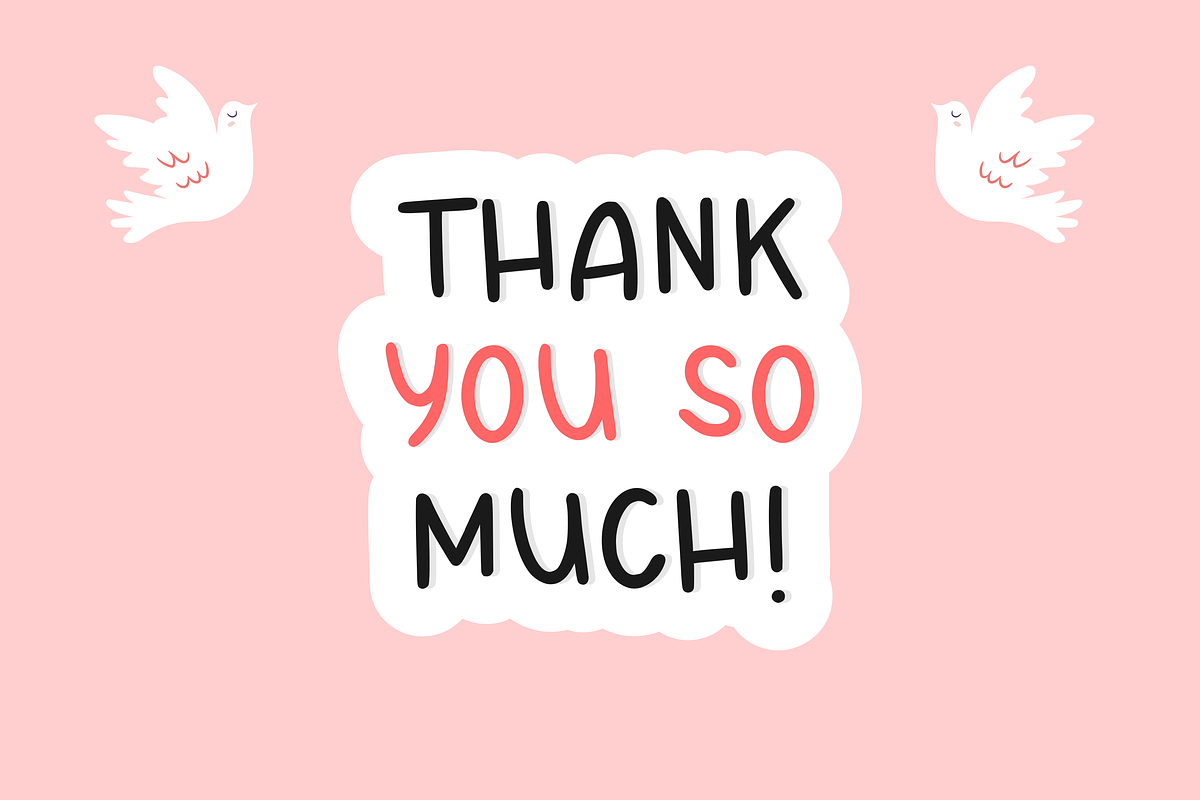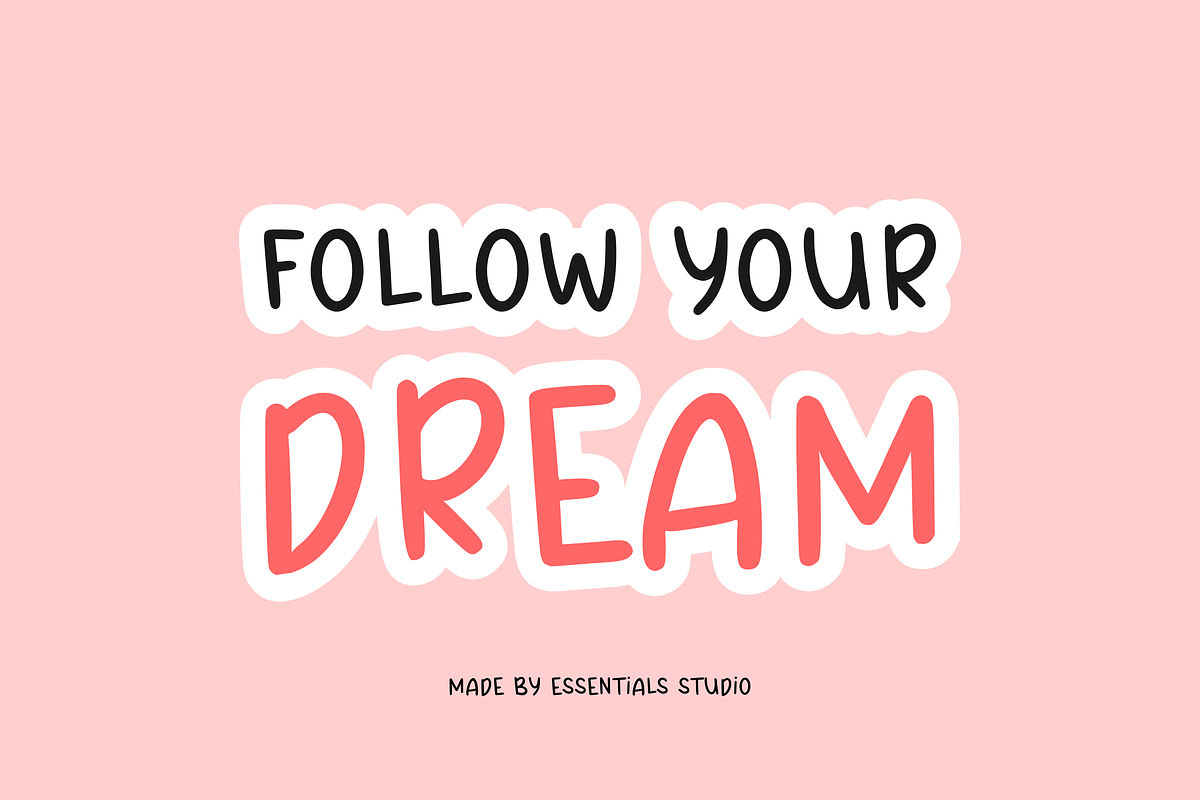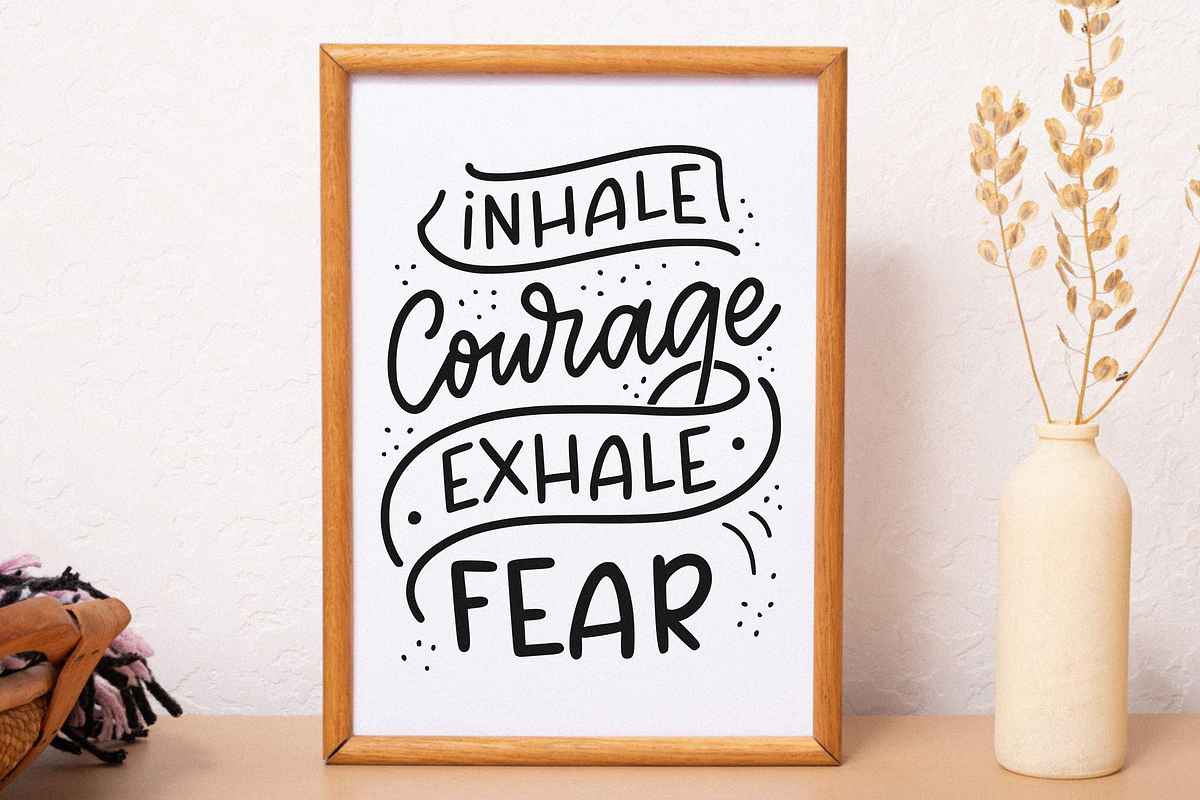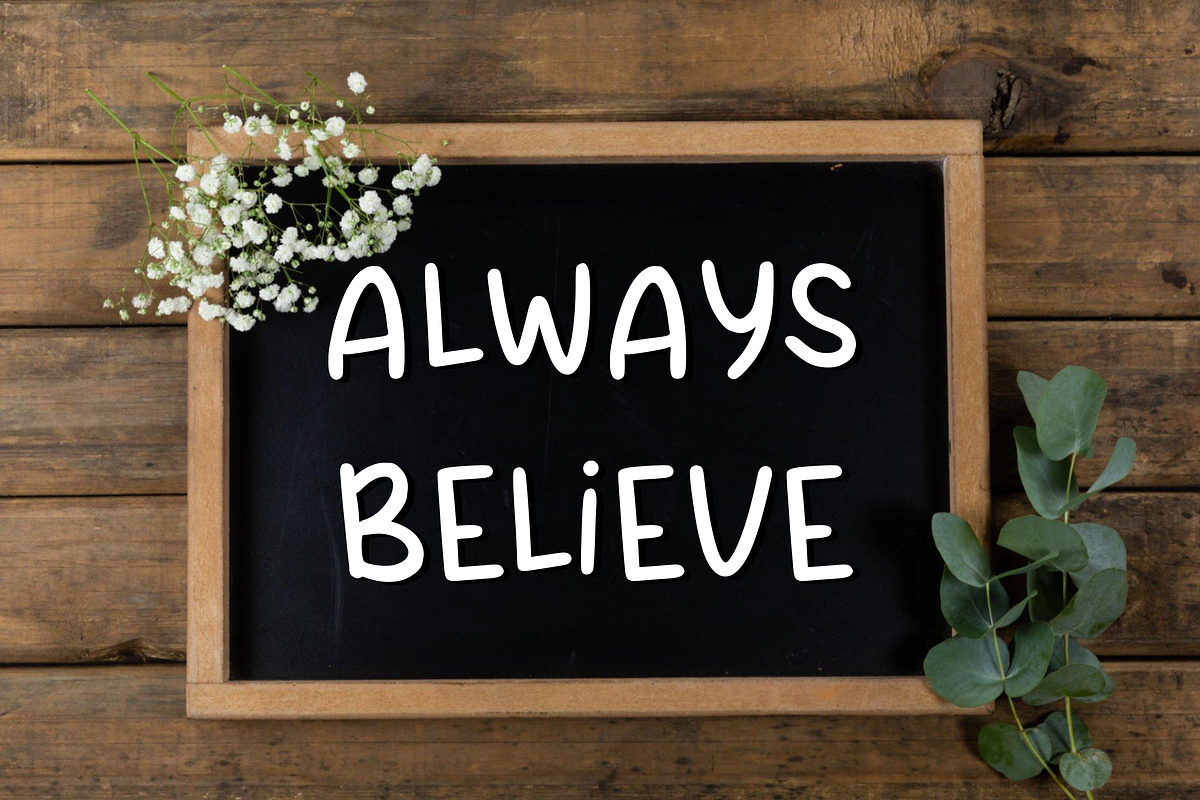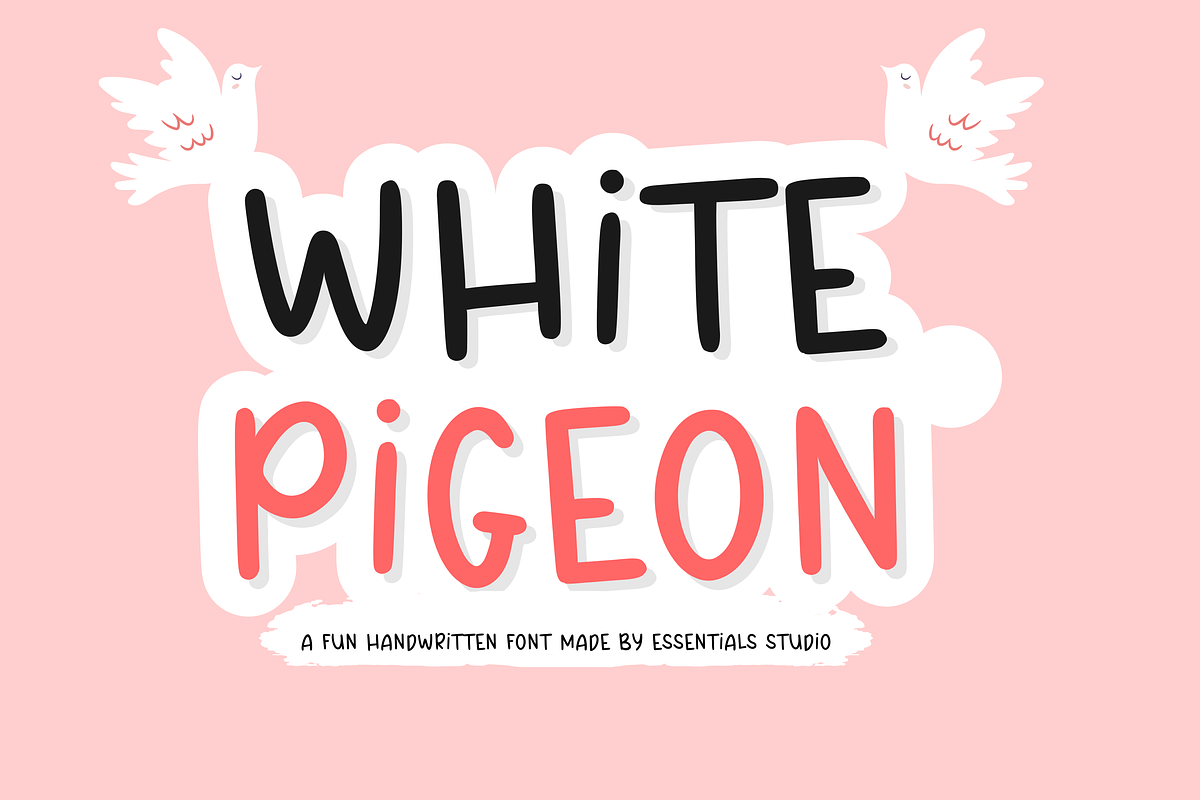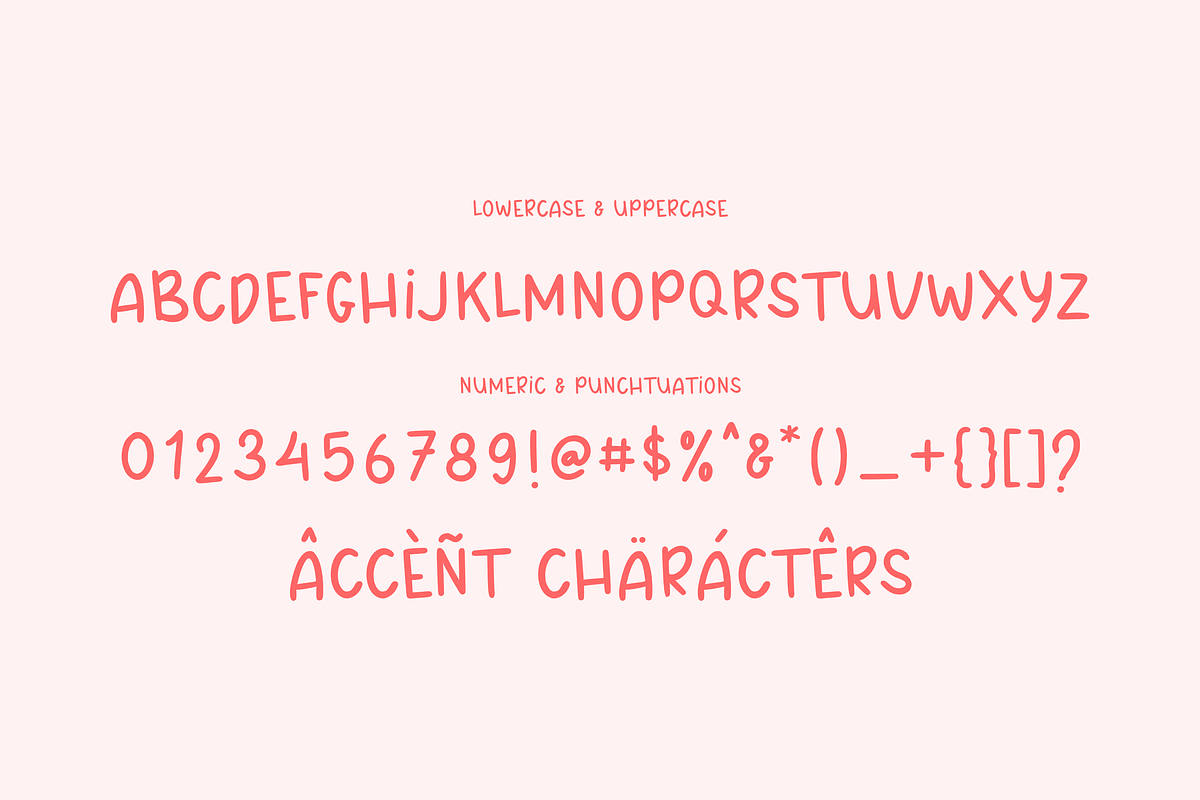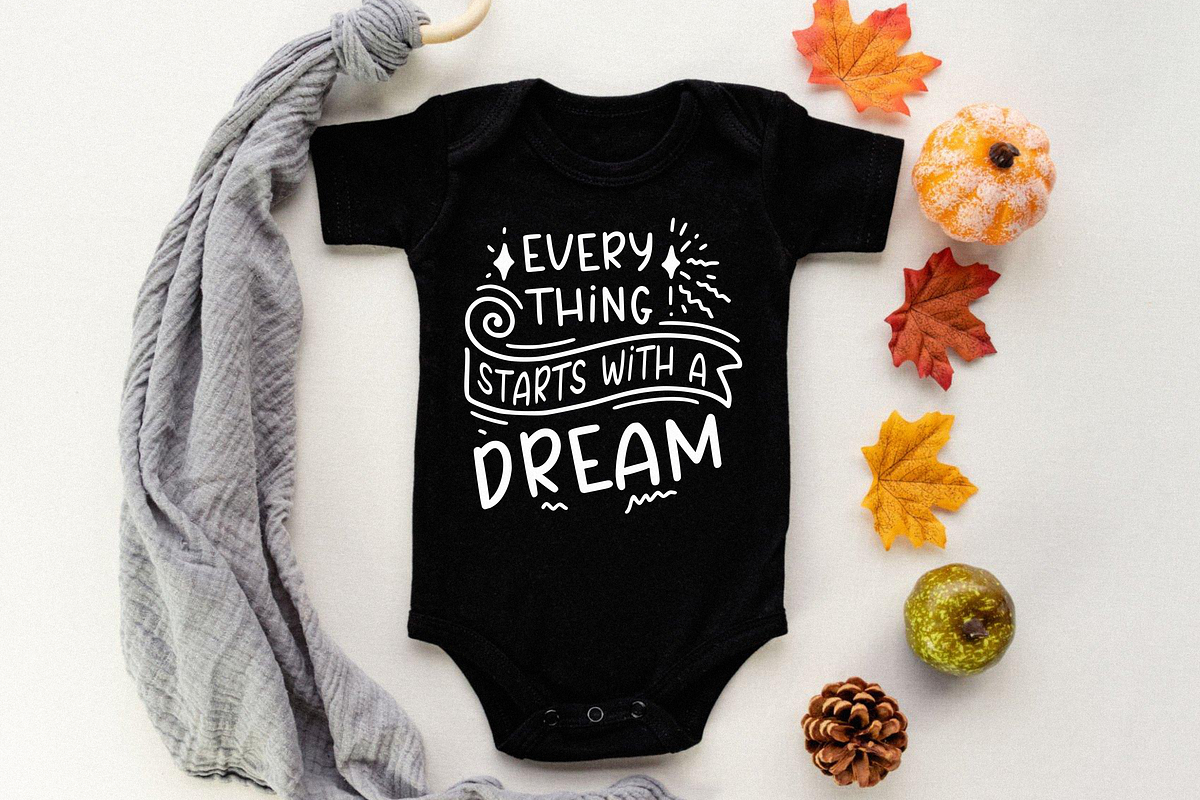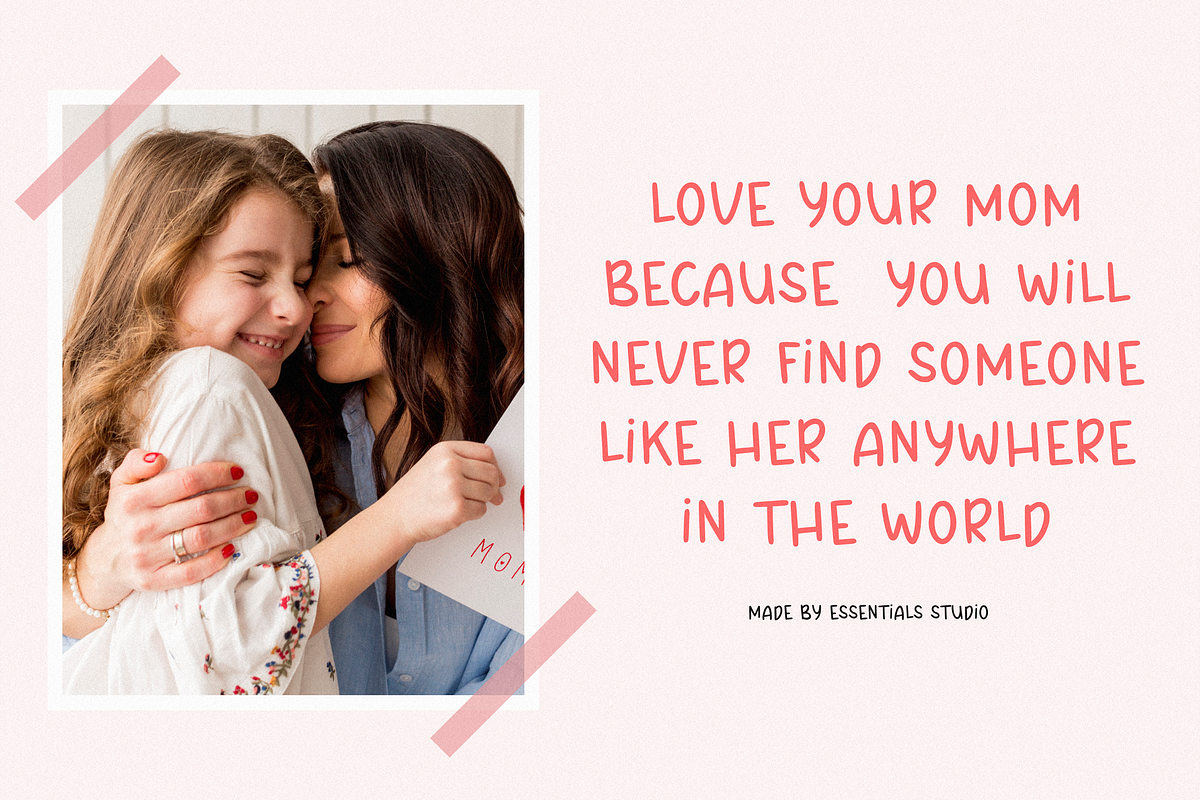
White Pigeon
White Pigeon Is a A Fun Handwritten Font
White Pigeon is perfect for product packaging, branding project, megazine, social media, wedding, or just used to express words above the background.